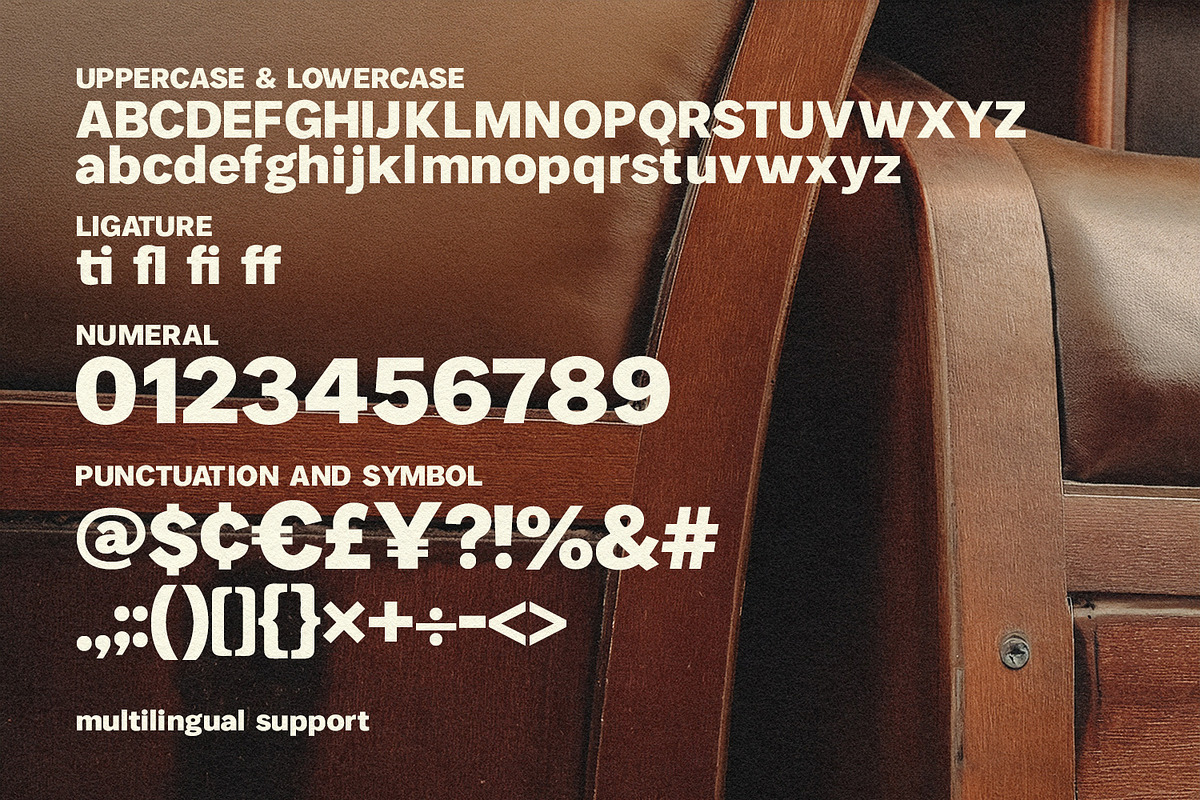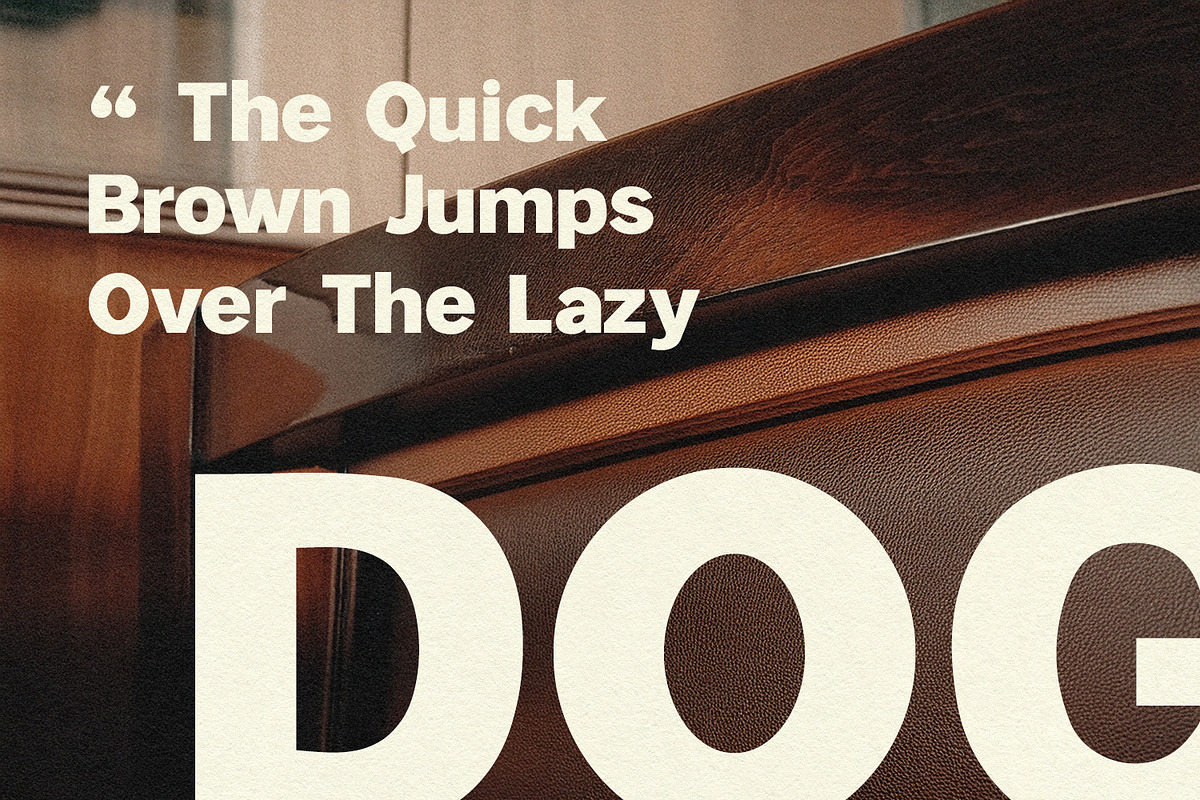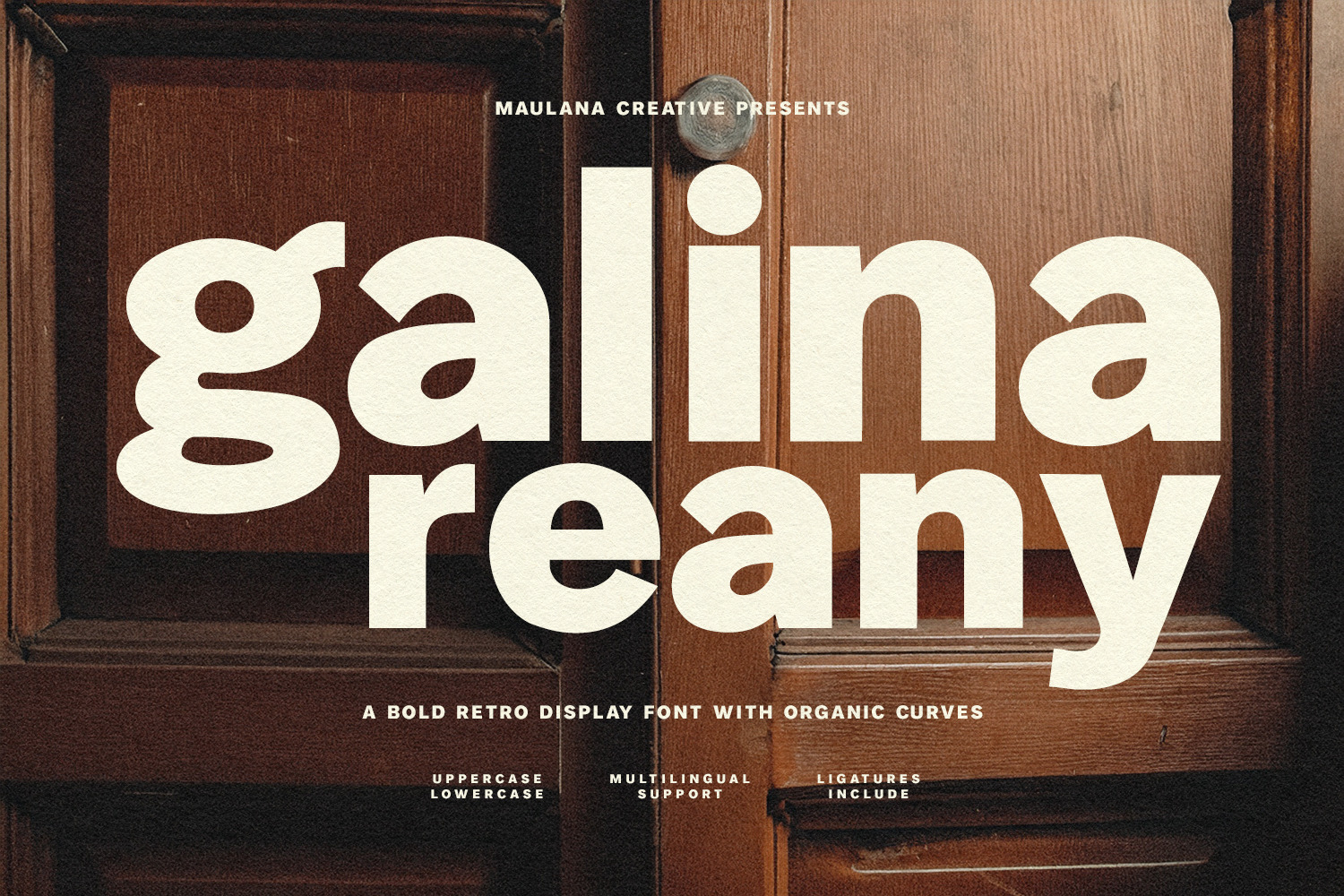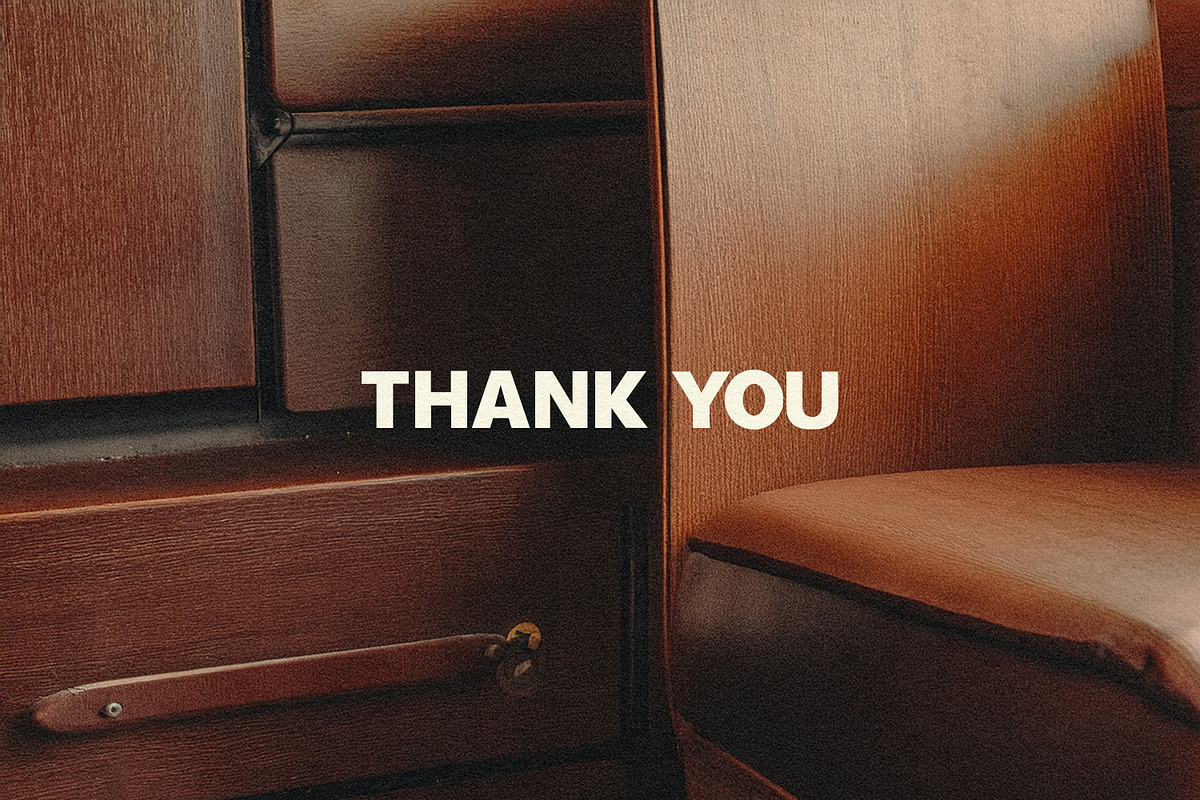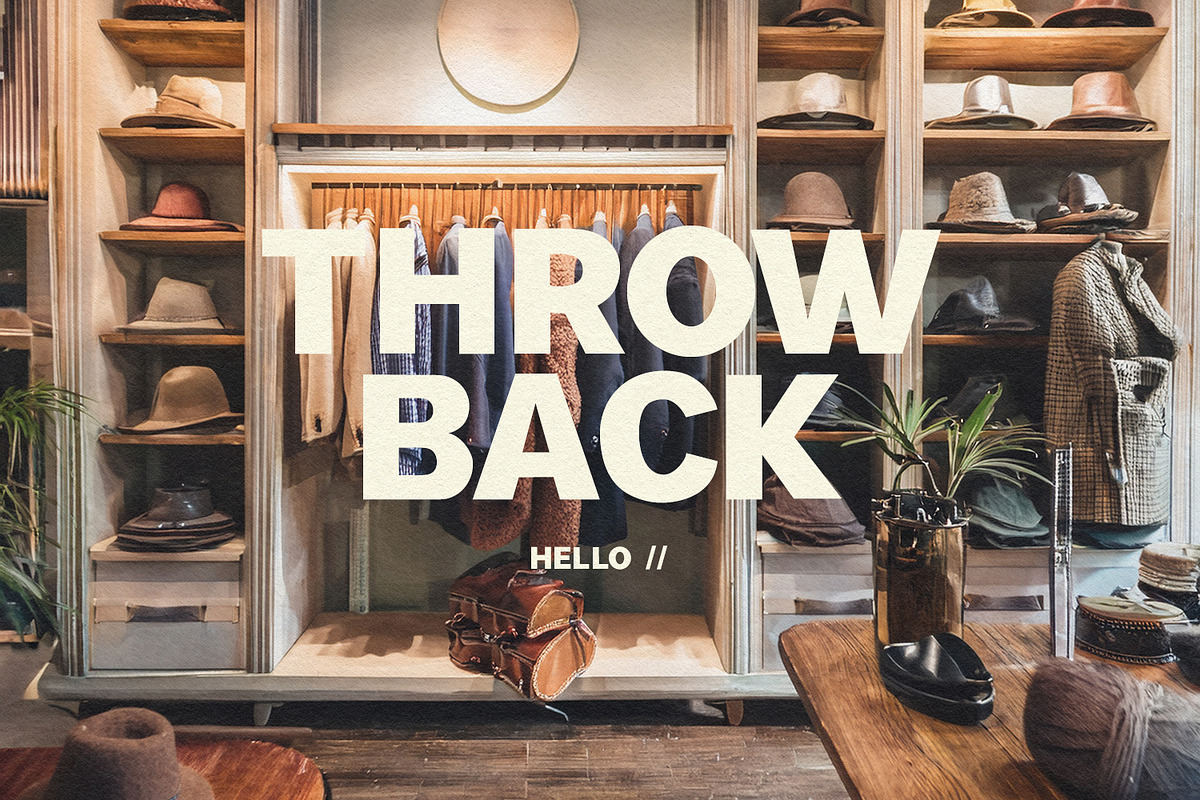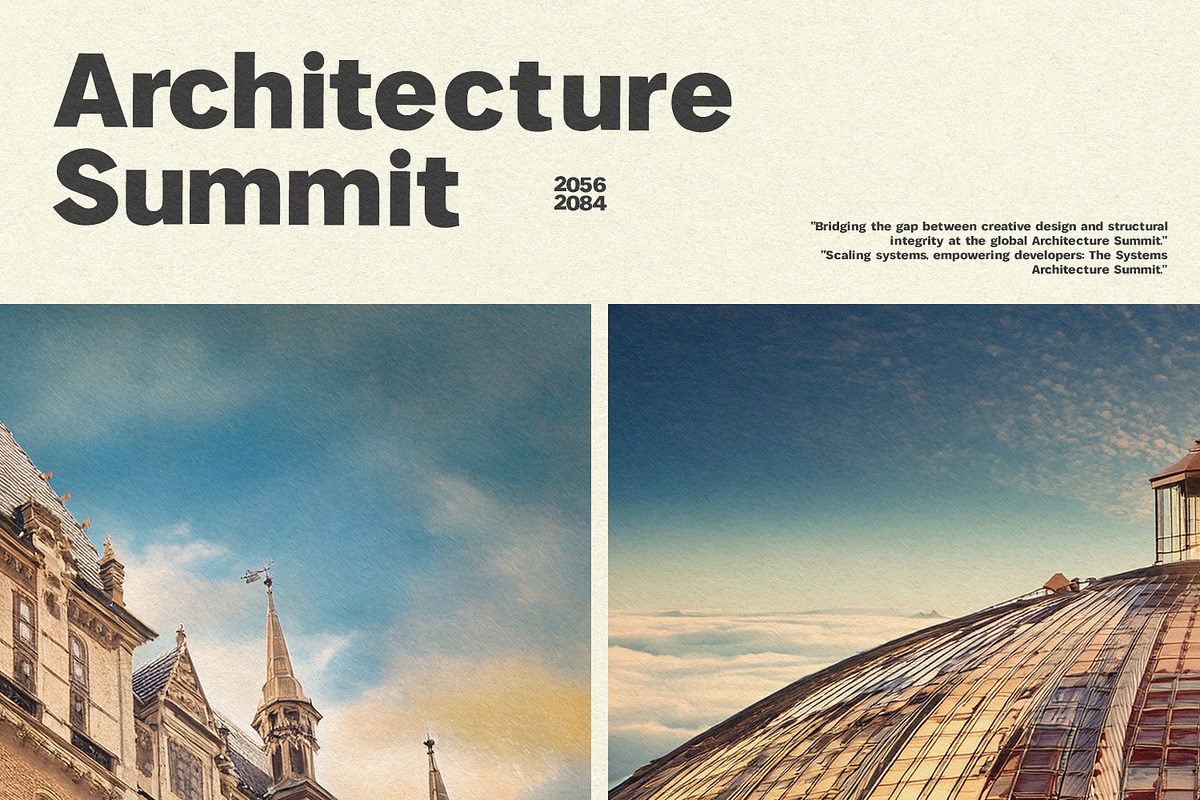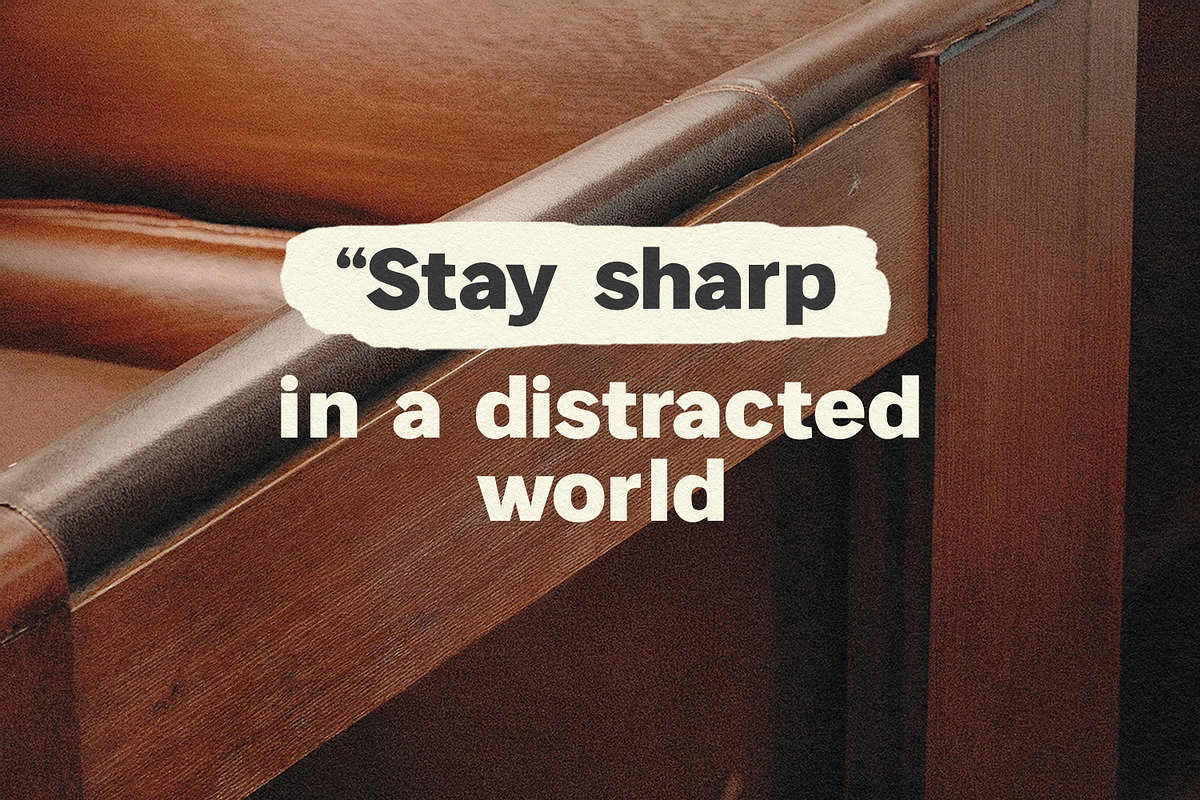
Galina Reany Bold Retro Display Font
Galina Reany is a striking display font that perfectly balances vintage charm with modern boldness. Featuring heavy, ultra-thick letterforms and smooth, liquid-like curves, this typeface draws inspiration from the 1970s psychedelic era while maintaining a clean, contemporary edge. Its high-contrast structure makes it an ideal choice for eye-catching headlines, organic branding, eco-friendly packaging, and creative posters. Whether you're designing for a nature-themed project or a bold fashion statement, Galina Reany brings a grounded yet expressive personality to every layout.